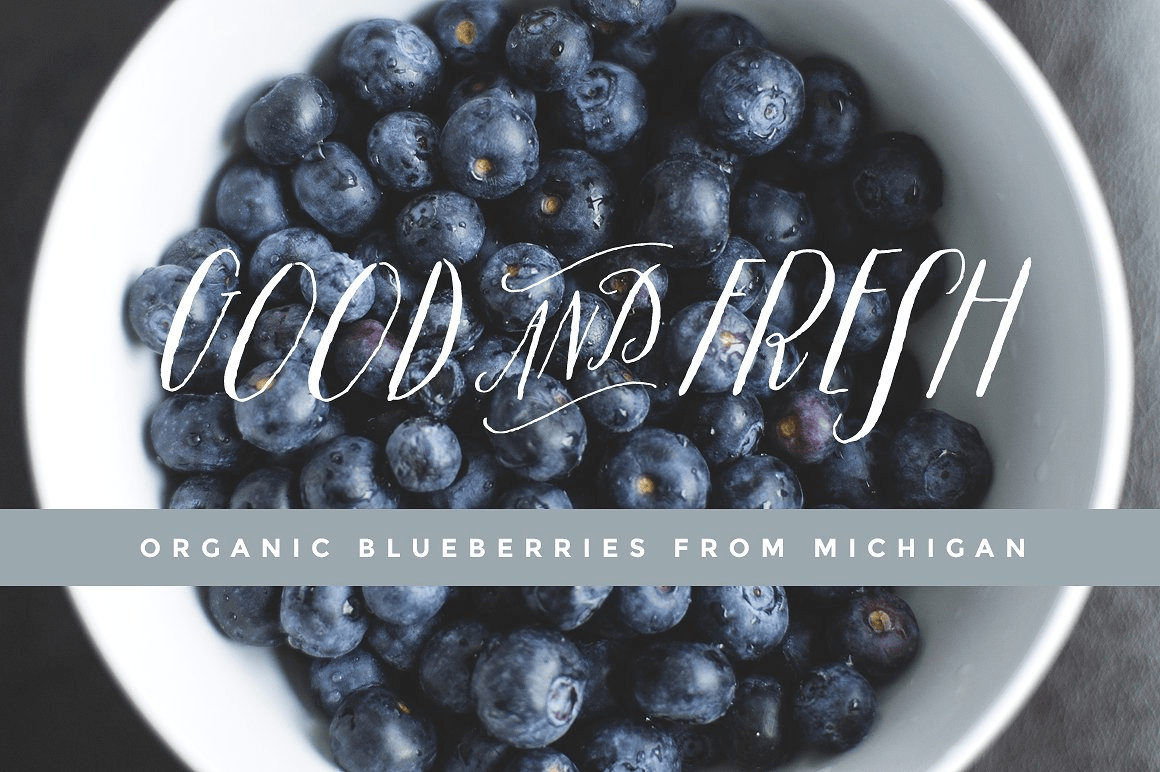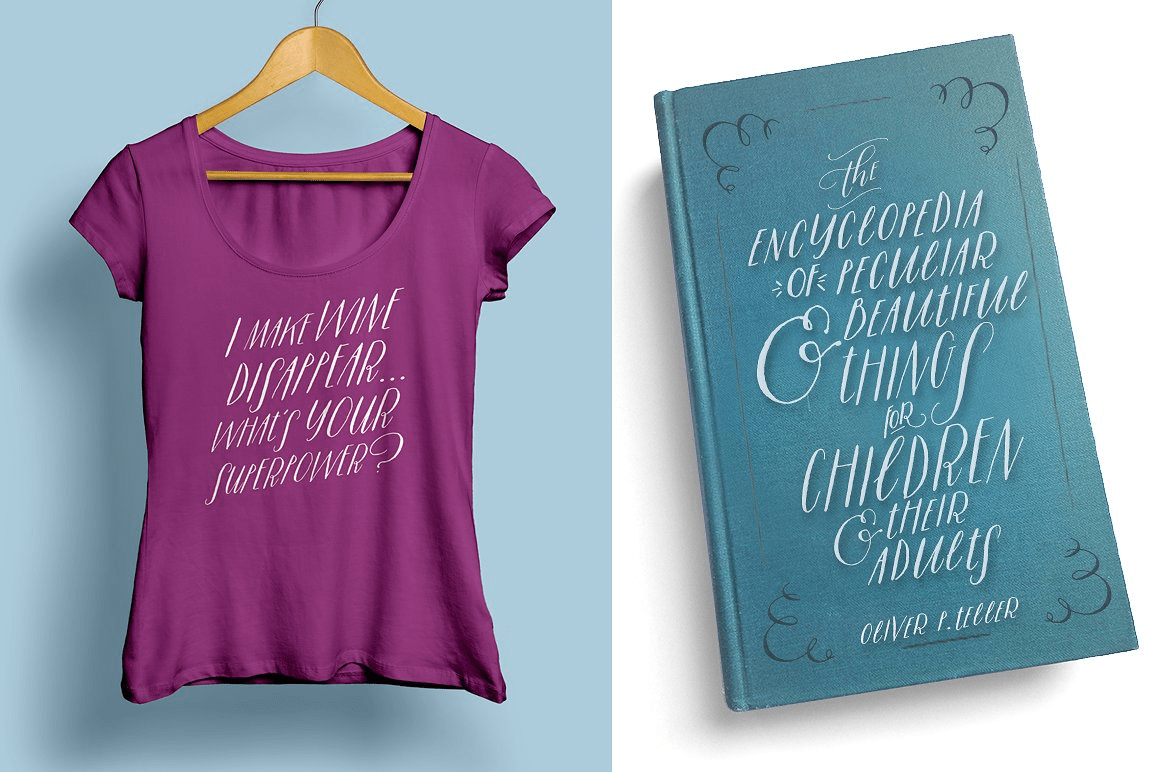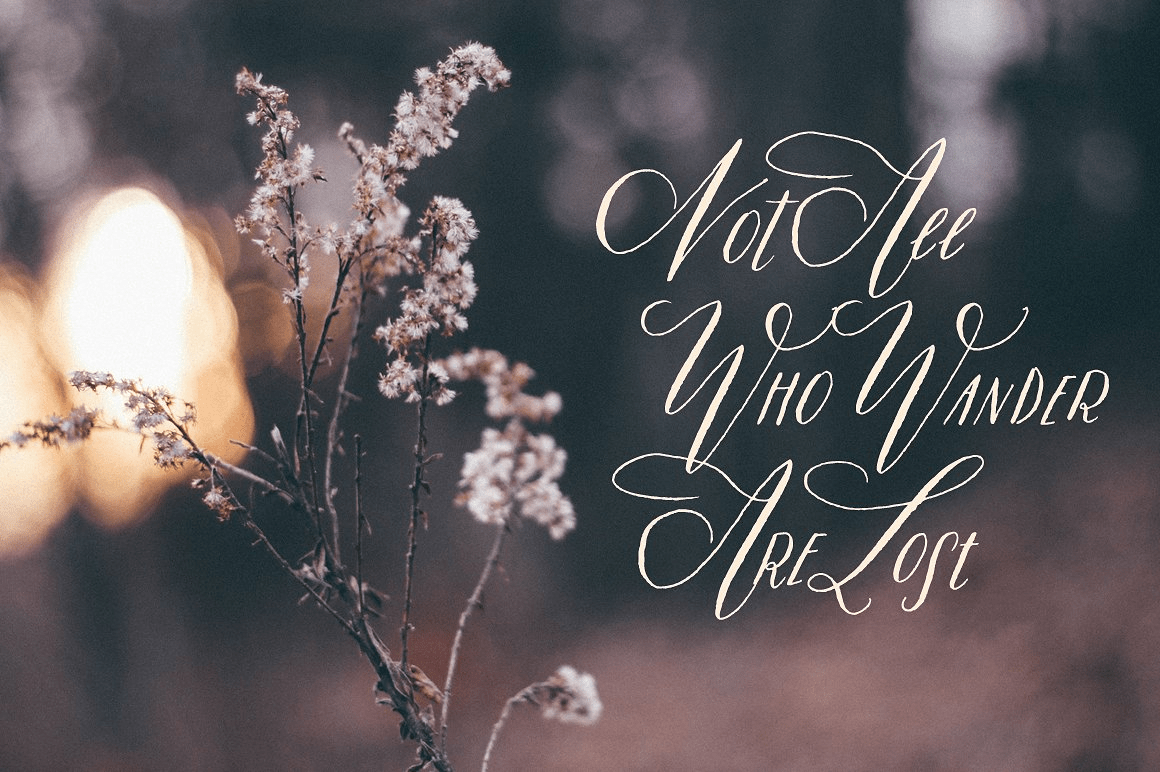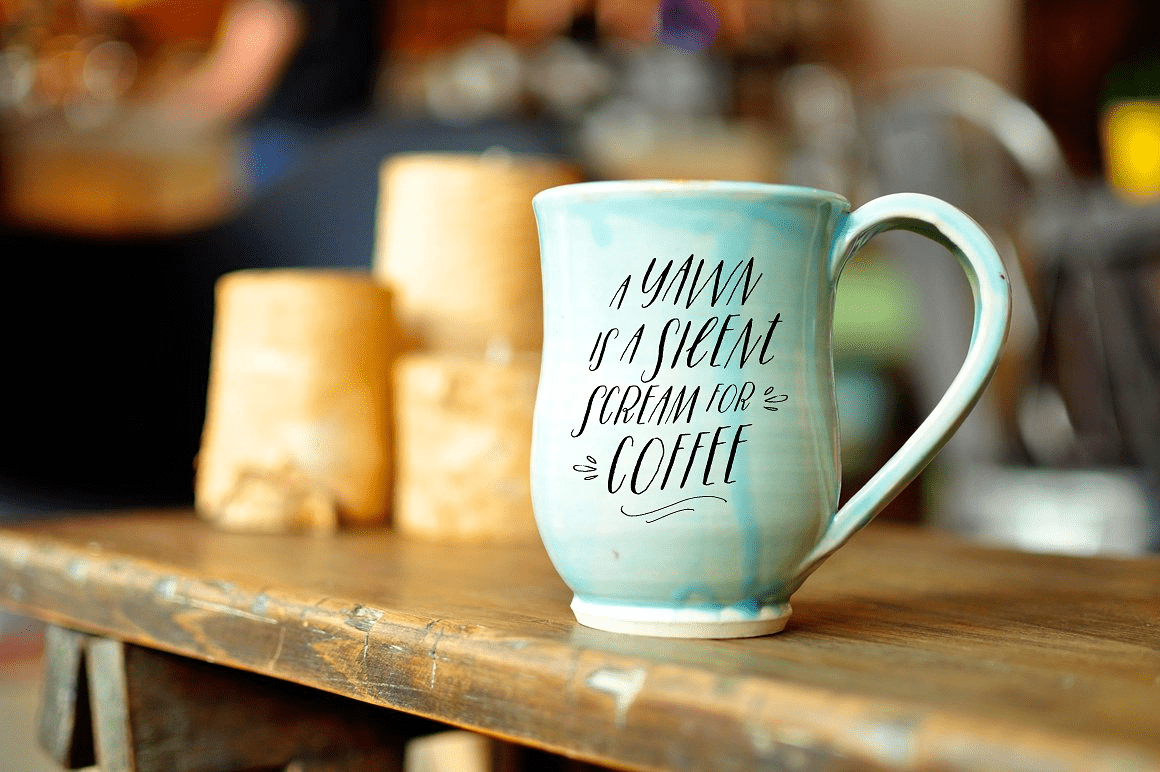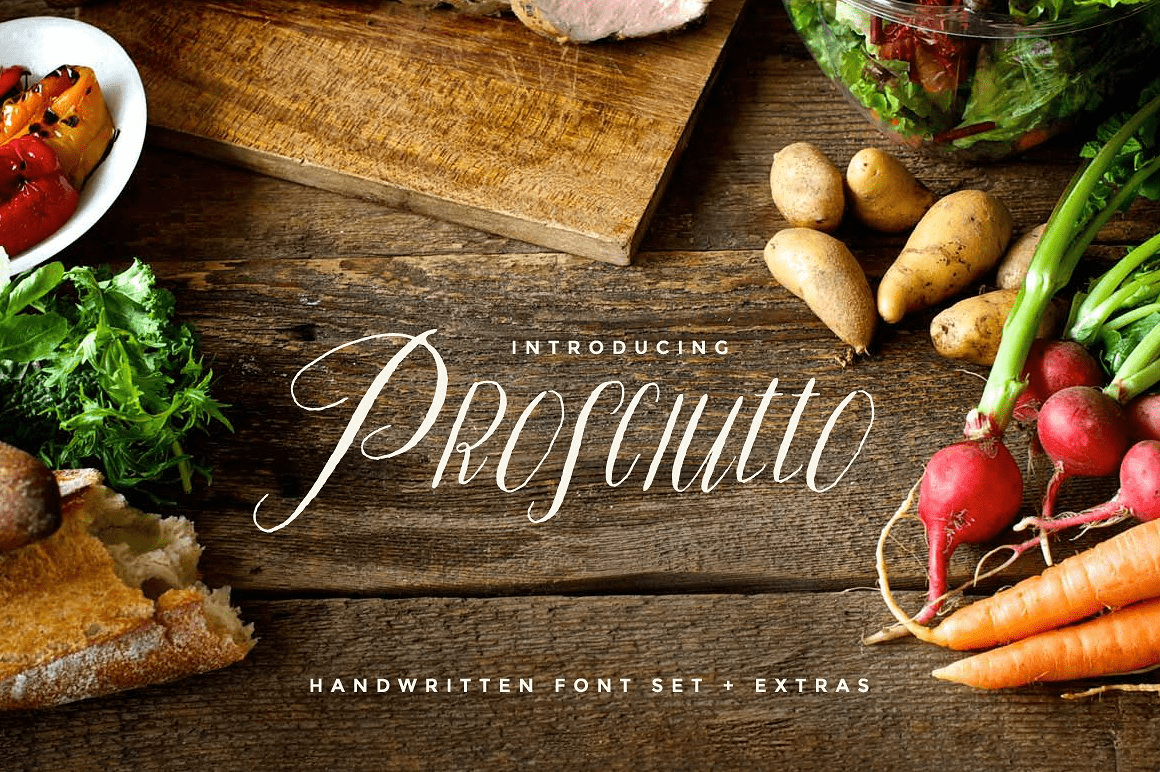
Prosciutto
About Prosciutto
Prosciutto is a completely handlettered typeface that just like the Italian cured ham itself, is a buttery mix of salty and sweet forms. Prosciutto combines modern script and primitive printing that makes its own kind of modern day folk movement. This…